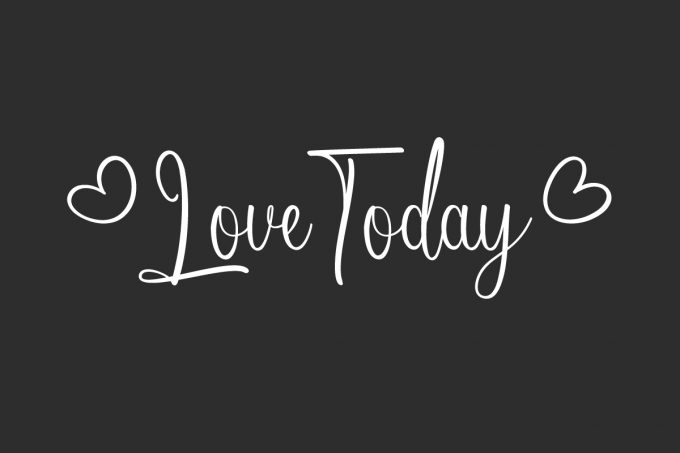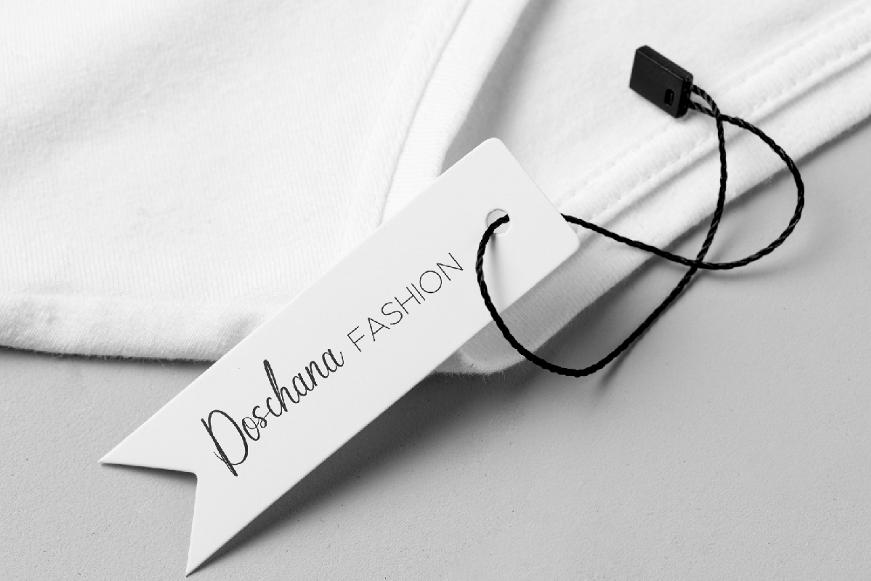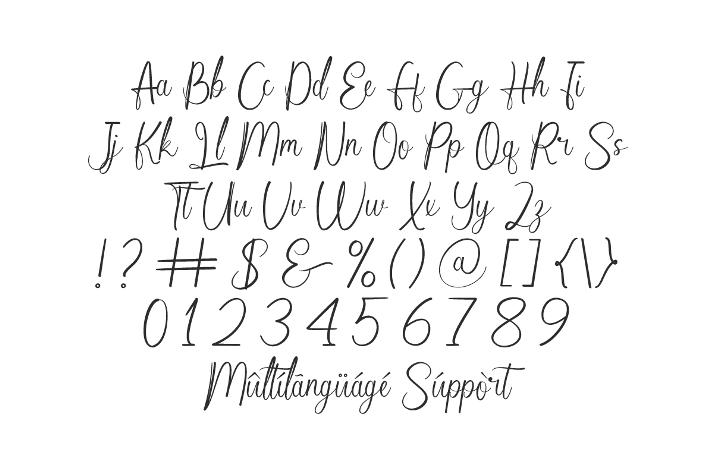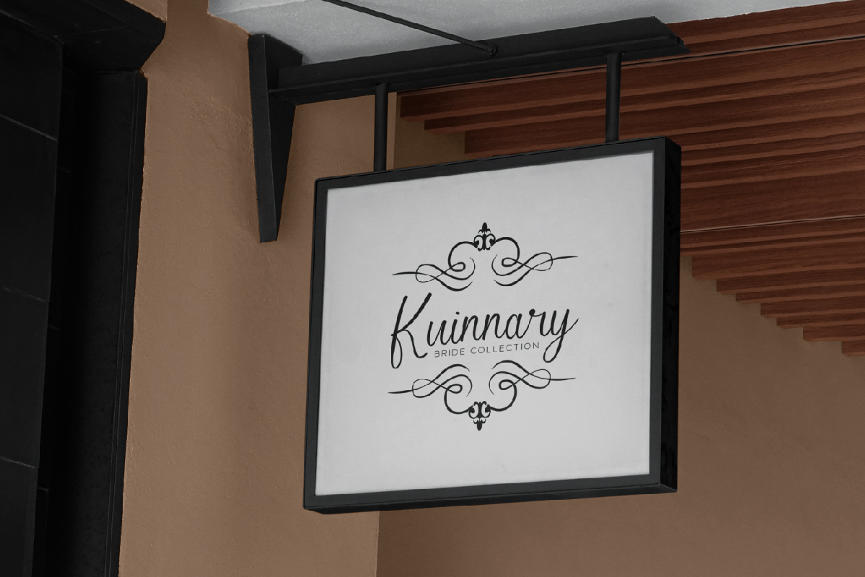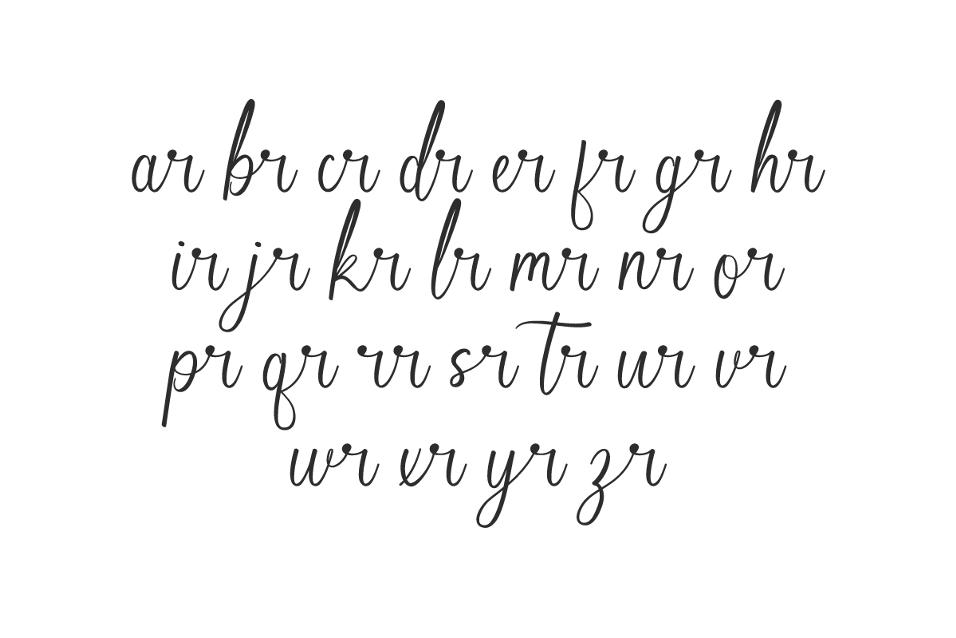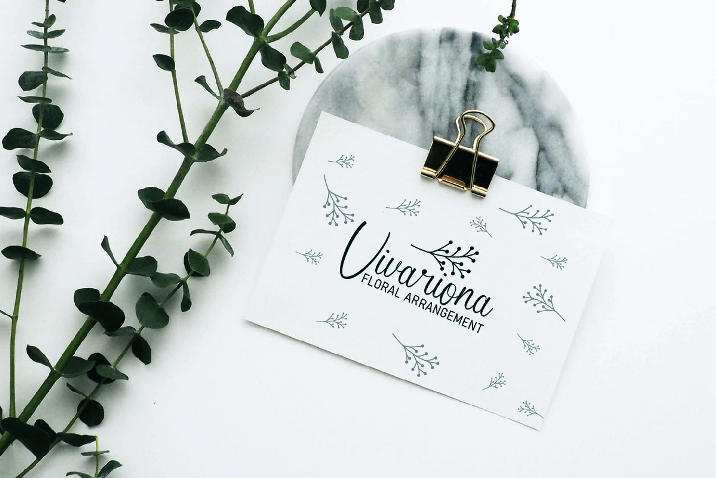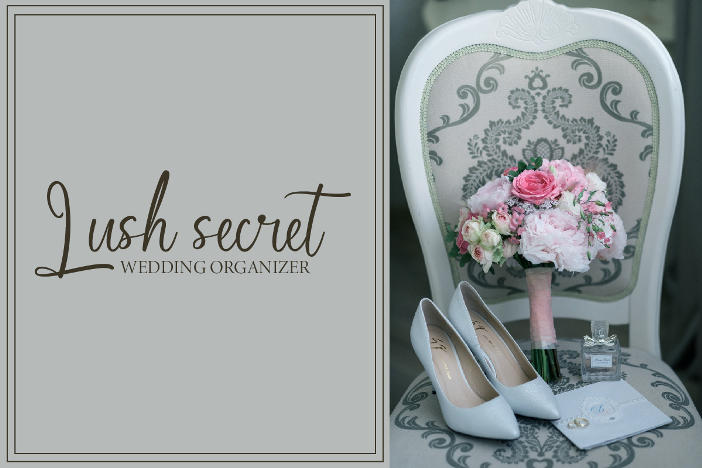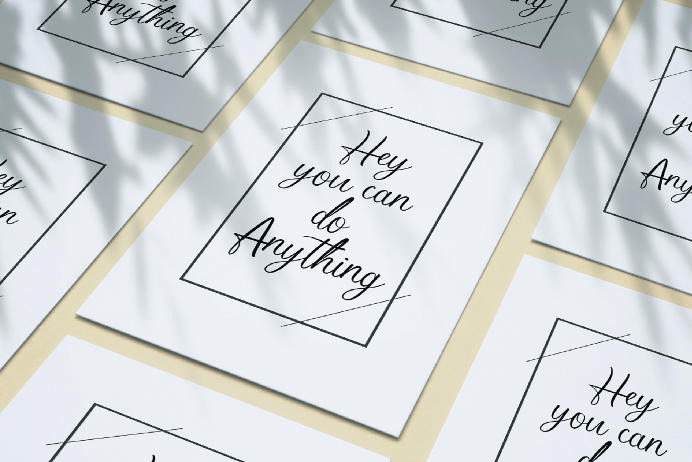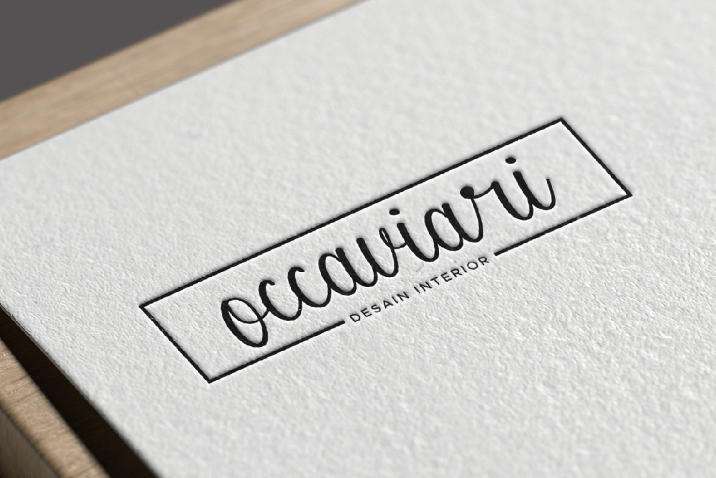
Love Today is a beautiful handwriting font, great for wedding, branding tittle, book, social media post etc. This font is crafted carefully in every its single letter so we can make sure it has special looking, exclusive and This one should make your designs instantly standout and stunning !
Looking for the perfect handwritten font to add charm and personality to your designs? Love Today Handwriting Font is your new go-to typeface for creating beautiful, heartfelt projects that truly stand out.
Love Today Handwriting Font includes full set of Characters, Numerals and Punctuation. Also it contains ligatures to make it flowless that add more aesthetic fonts to perfect your extraordinary project. This font will be great for musical, school, teacher, student, kindergarten, drama, movie etc
This font is perfect for many projects including : Flyer, headings, logos, branding design, quotes, products, cards, stationery, invitations and more! Be a unique in a minute and start creating today!